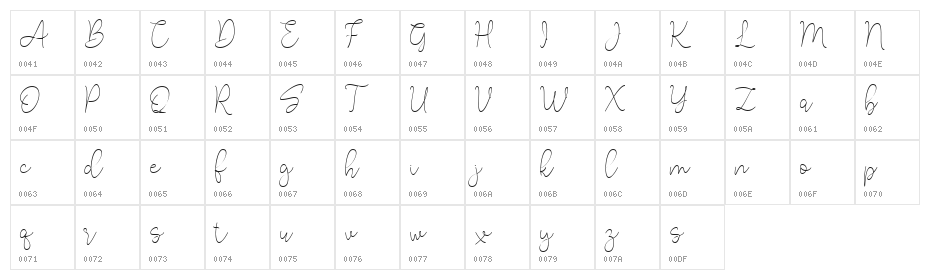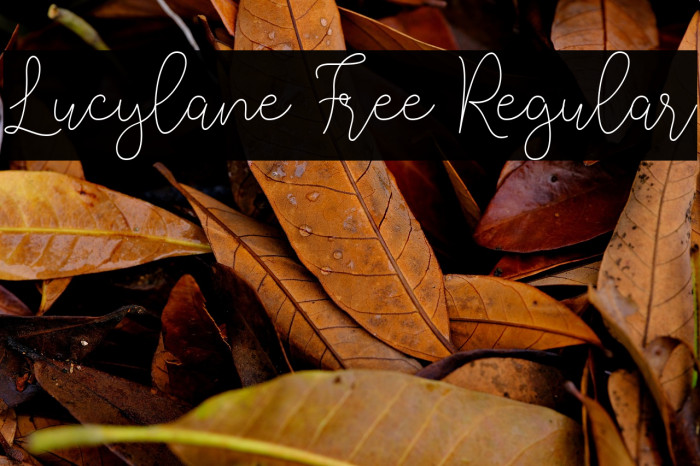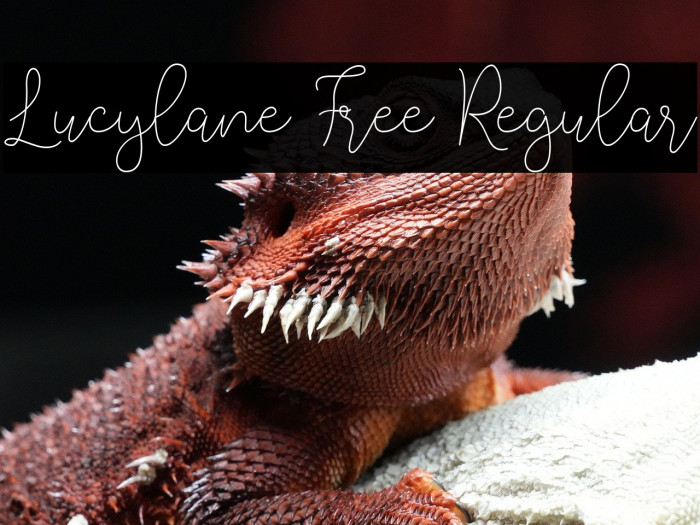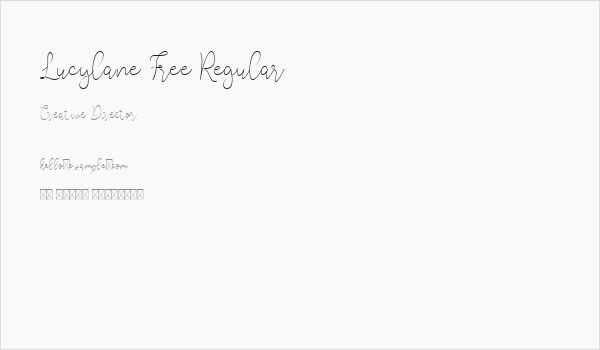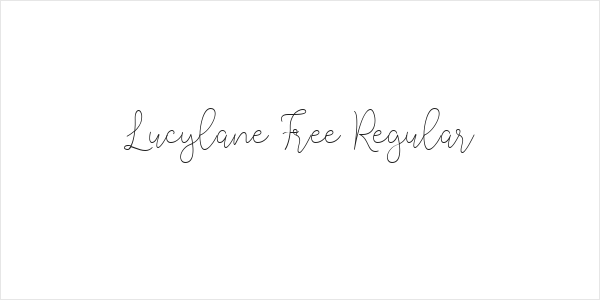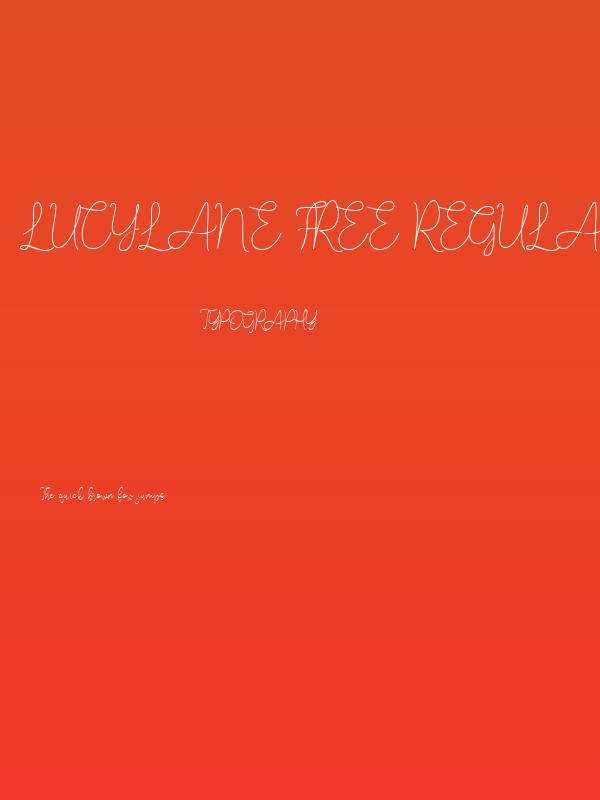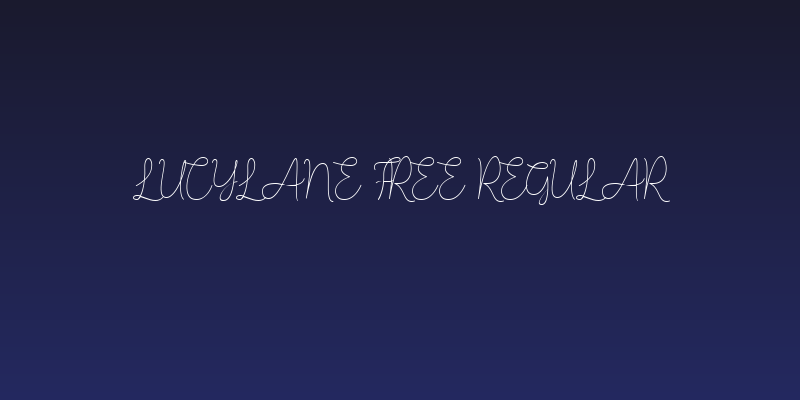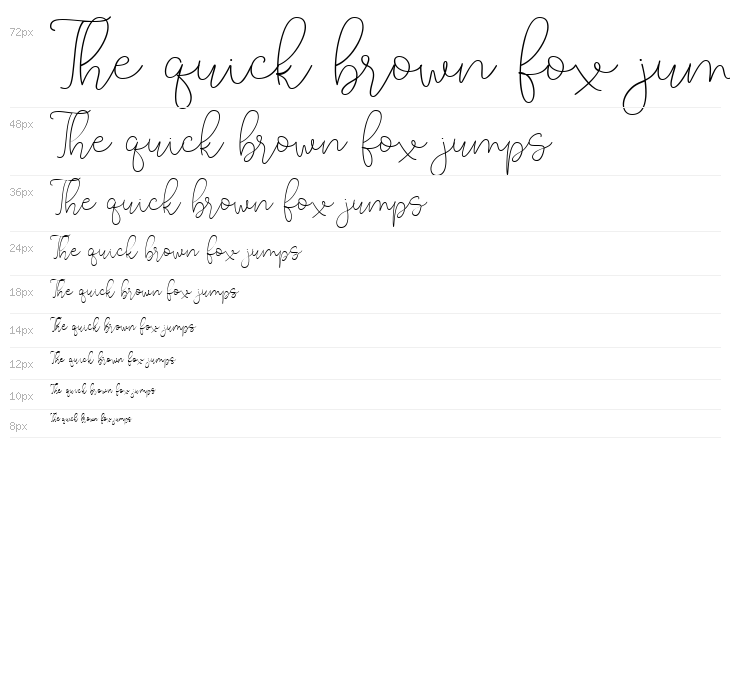
Lucylane Free Regular Font
Lucylane Free Regular Description
This font features an elegant and flowing script style, characterized by its smooth, continuous strokes and delicate curves. The letters are interconnected, giving it a cohesive and harmonious appearance. It exudes a sense of sophistication and grace, making it ideal for projects that require a touch of elegance. The uppercase letters are slightly taller and more pronounced, while the lowercase letters maintain a consistent flow. The overall design is airy and light, with a playful yet refined aesthetic.
| Overall Style | Elegant, Decorative |
| Proposed Projects | Ideal for wedding invitations, greeting cards, branding, and elegant logo designs. |